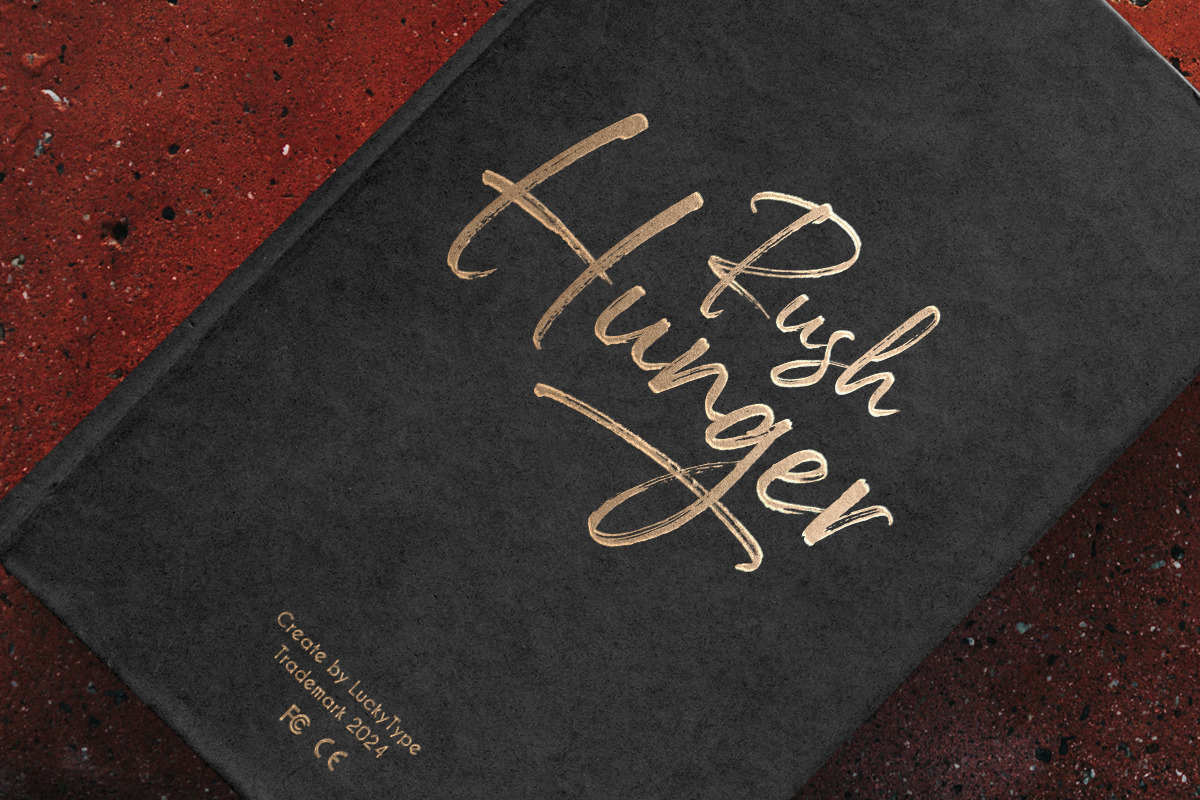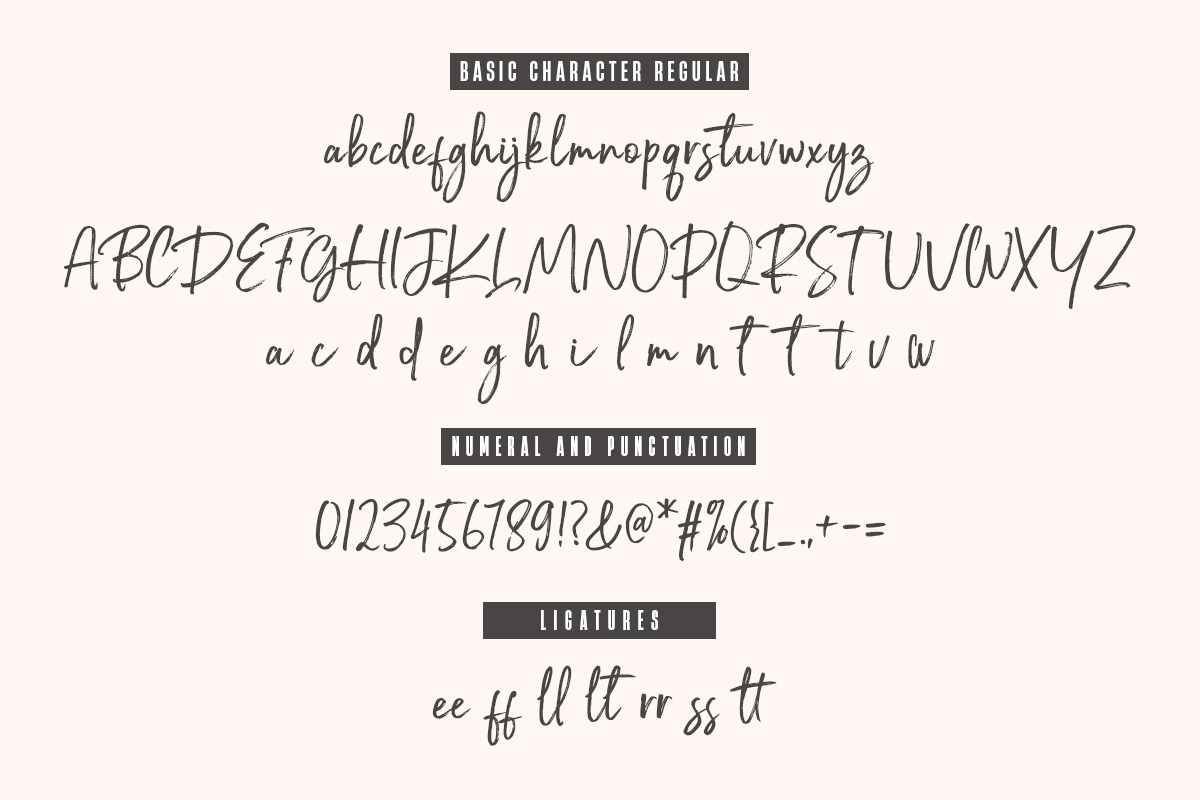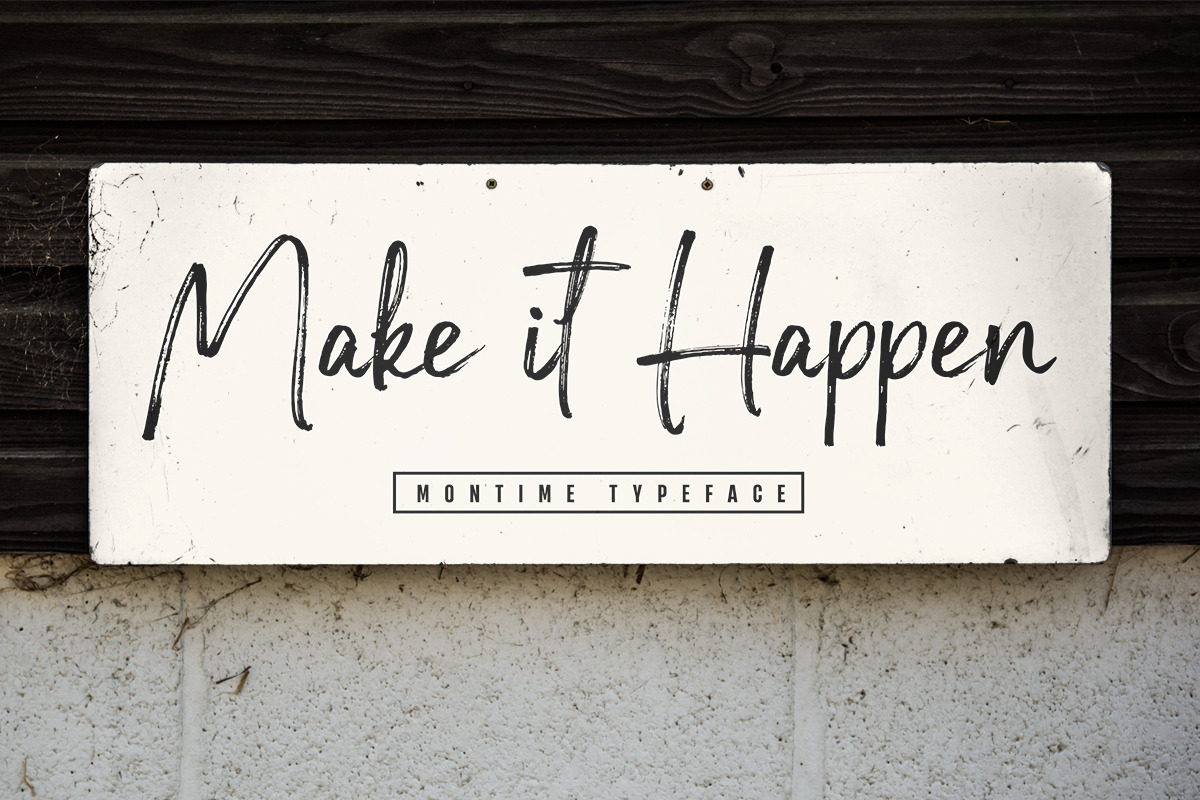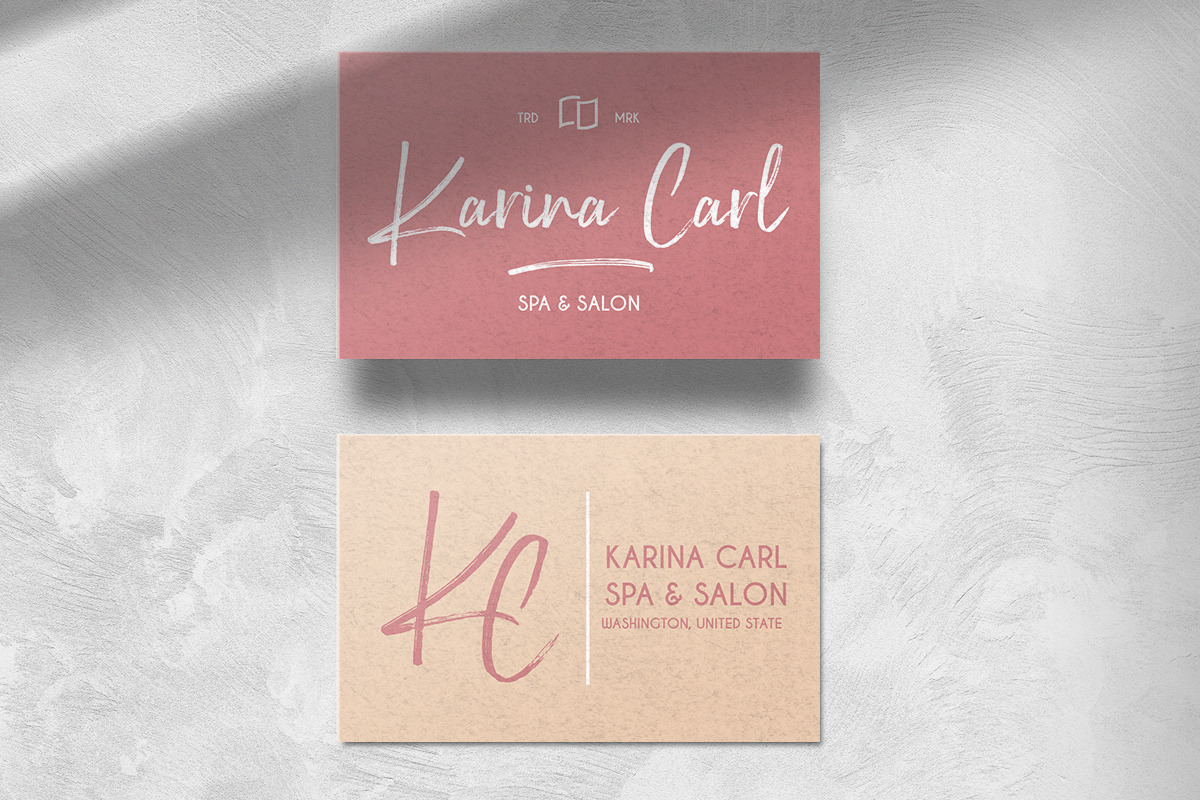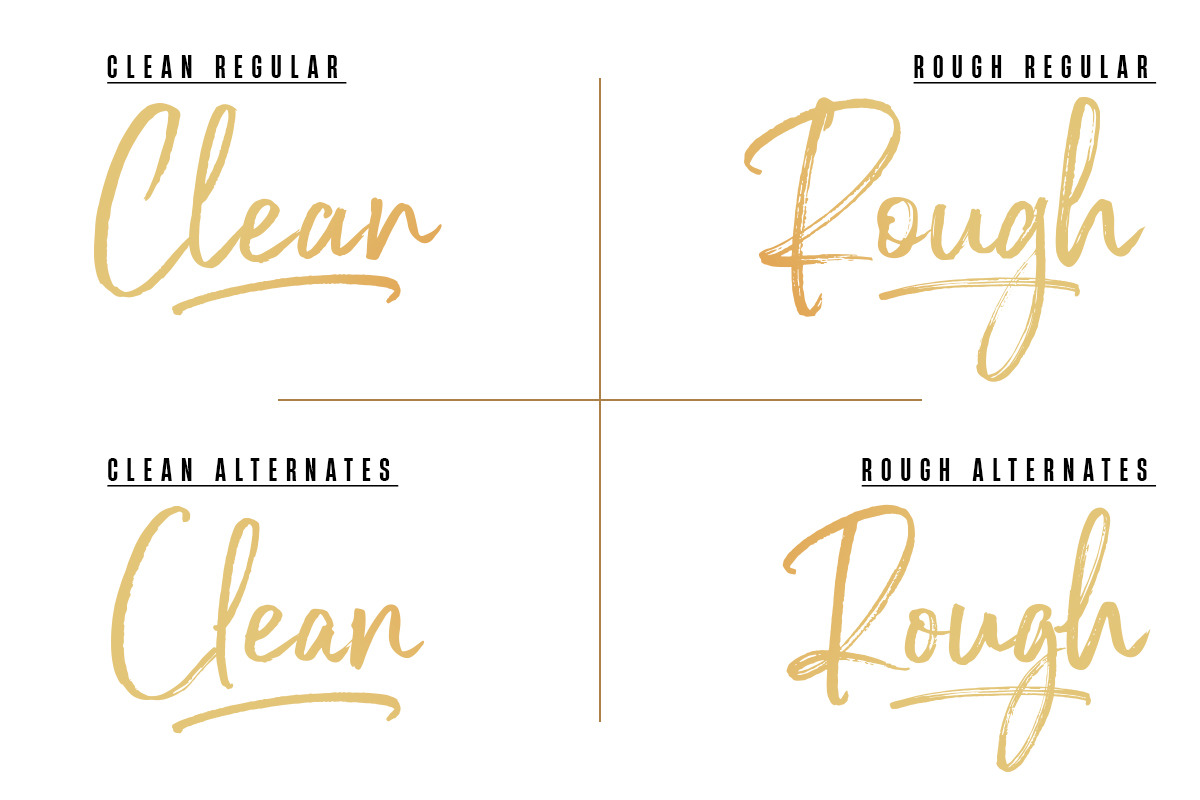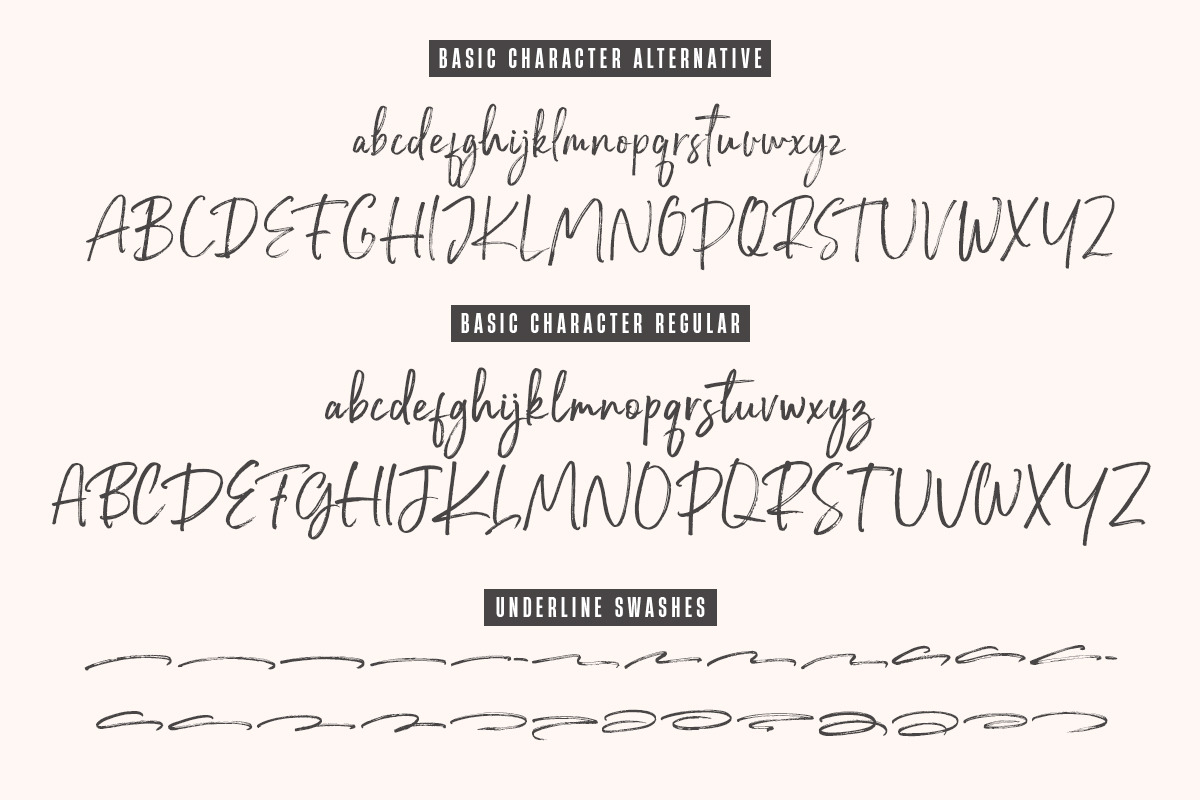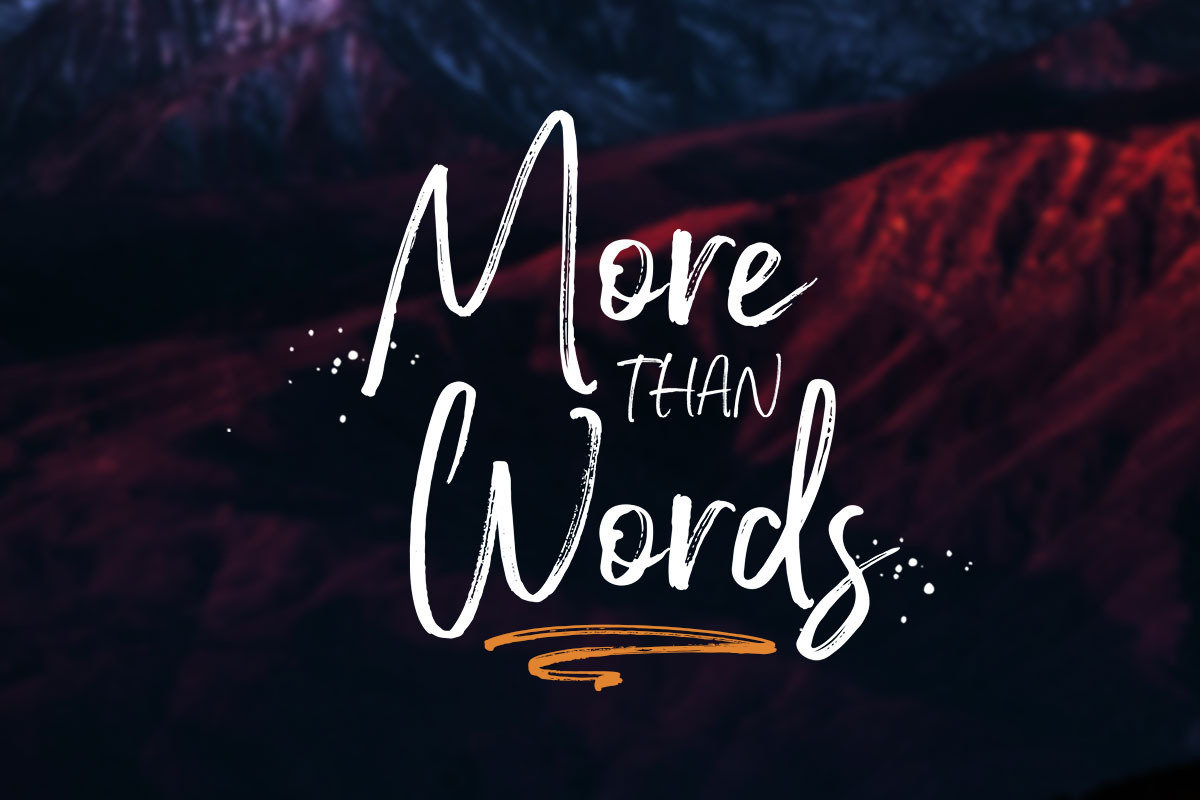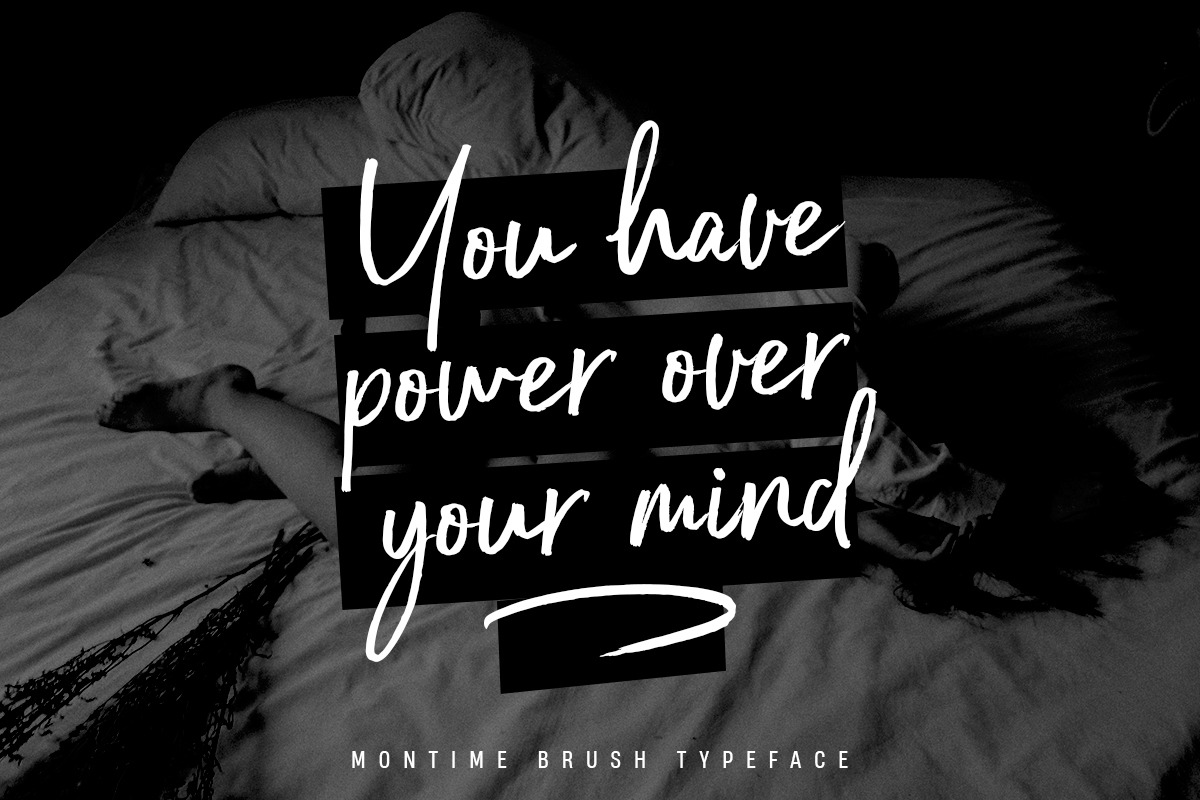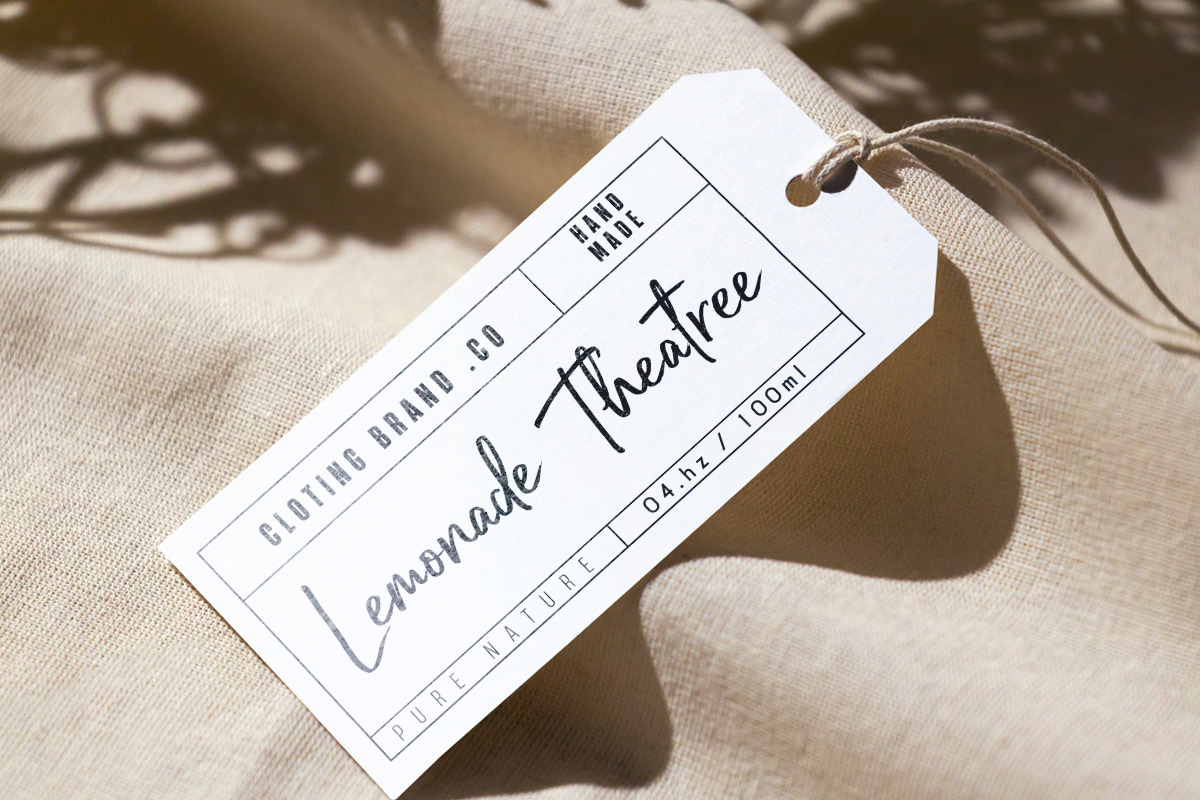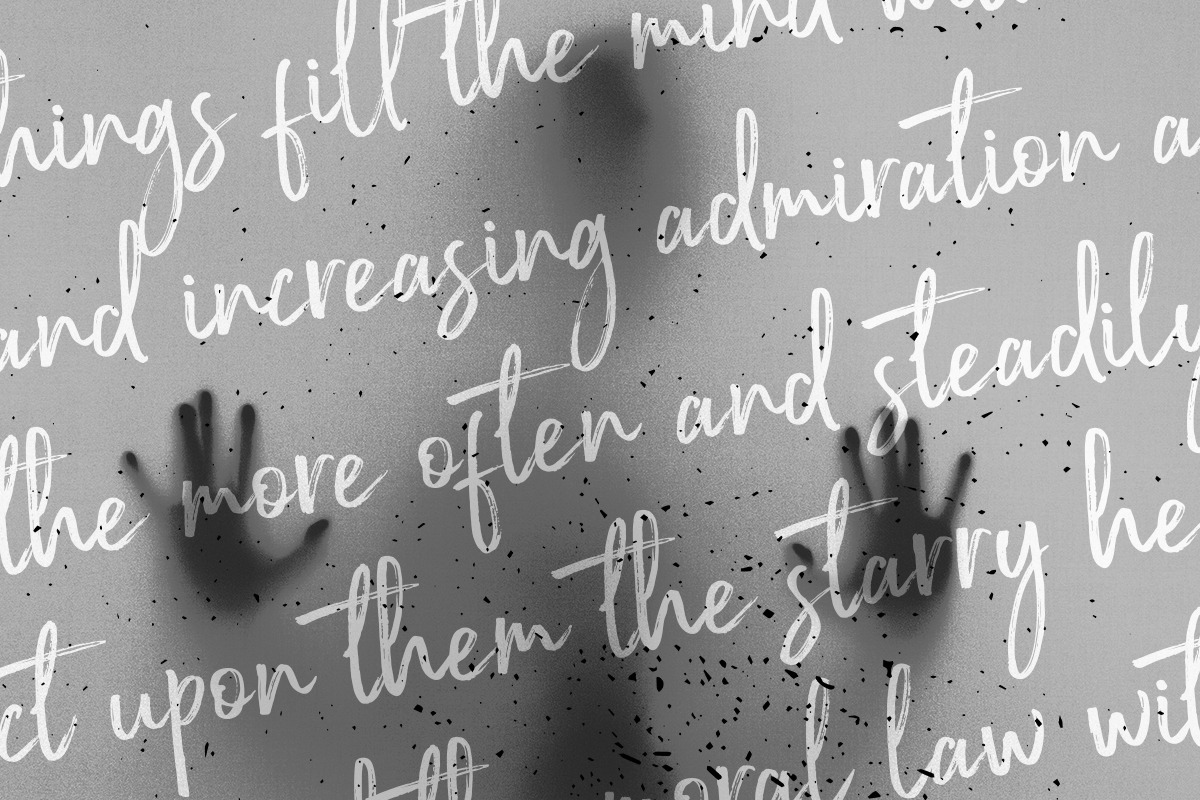
Montime
Montime is a natural, handwritten style script font with a personal and organic feel. The Montime font has varying stroke widths, and flowing letterforms that reflect unique characteristics. This typeface is ideal for branding, social media, invitations, and any design project that wants a personal, crafted feel. The Montime Font has two different typefaces, namely Montime Regular and Montime Alternative, with each having a clean version and unique ligatures to ensure that the Montime Font stands out in both digital and print formats. The Montime font also comes with 26 swashes in rough and clean versions that will make your designs stand out even more.